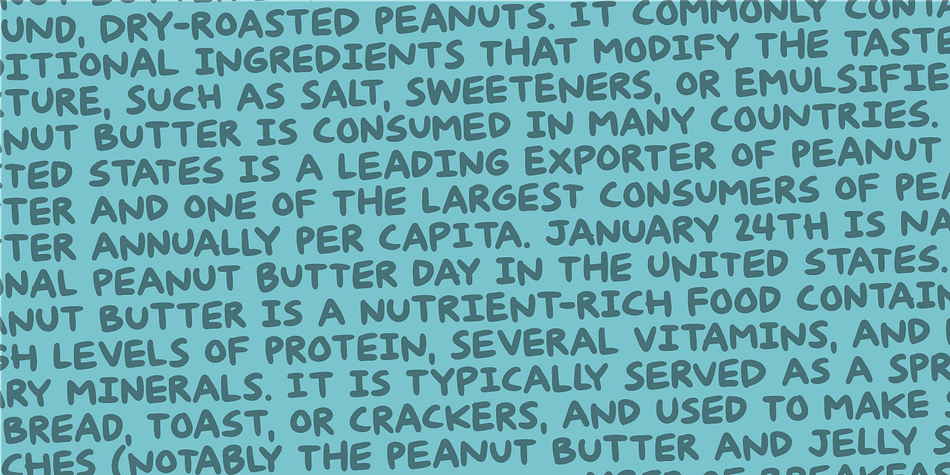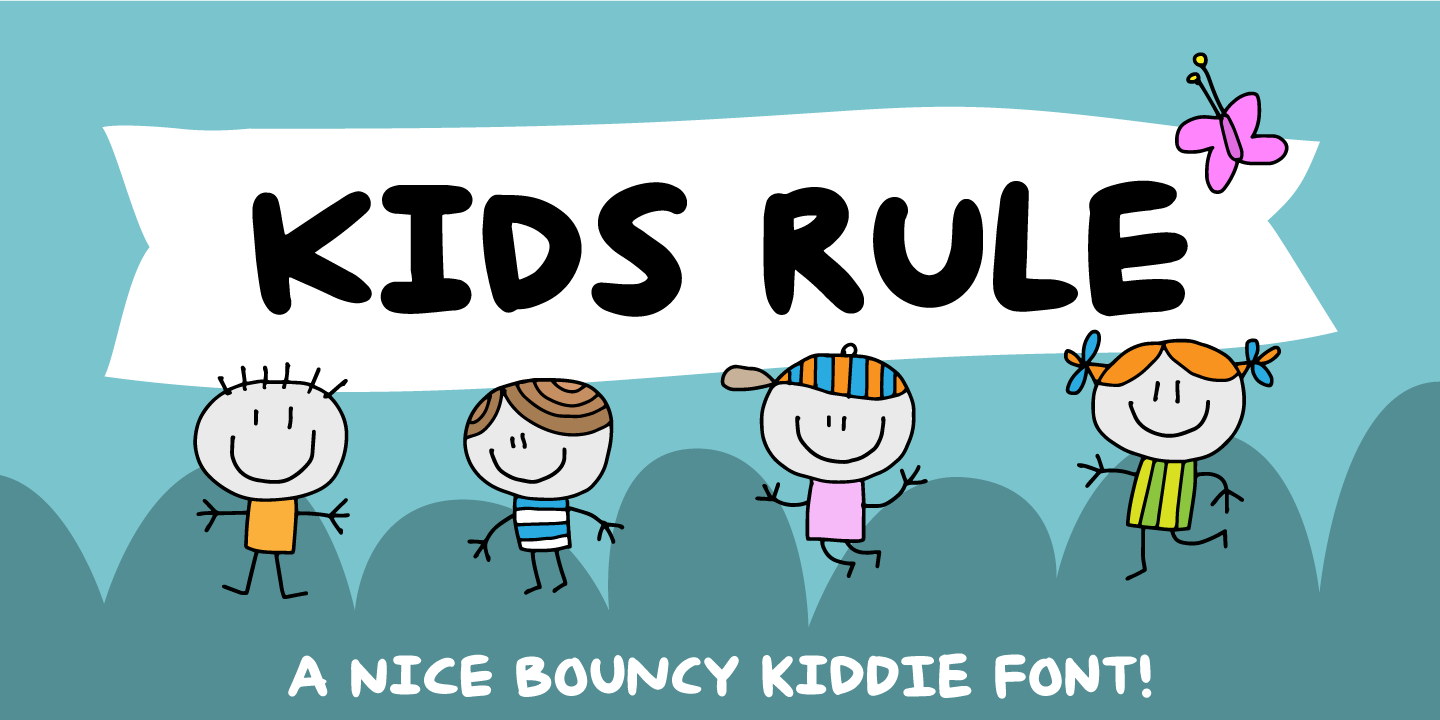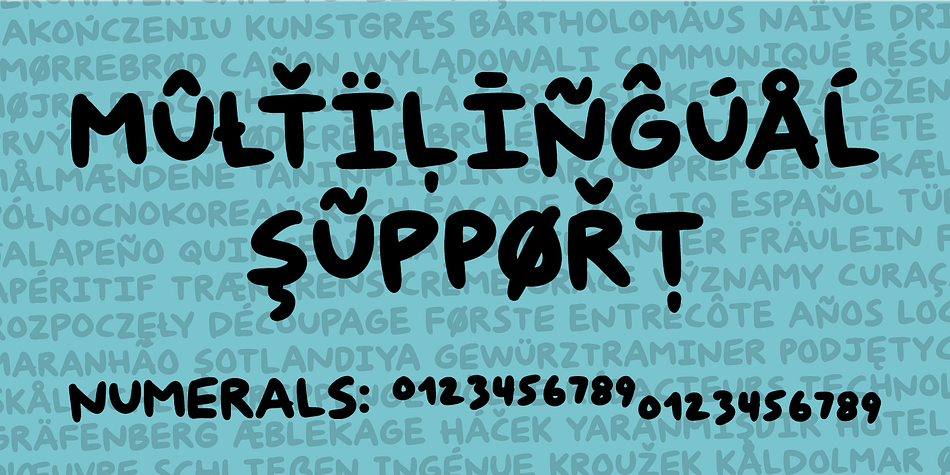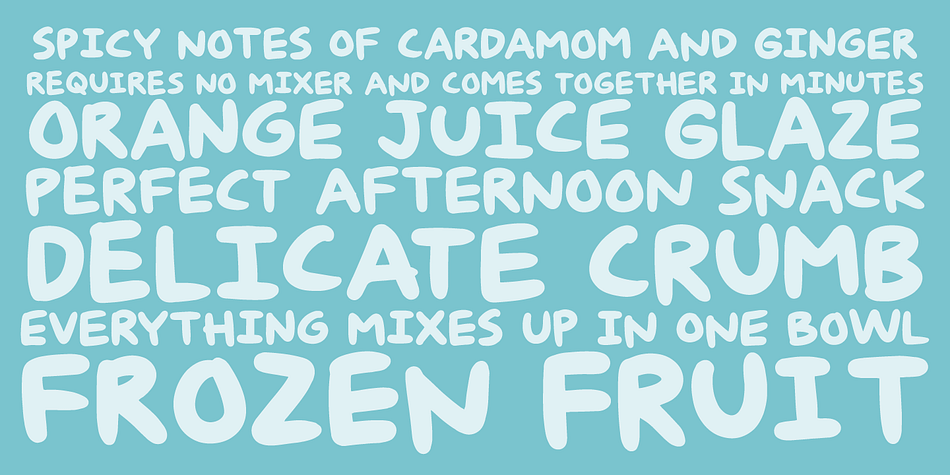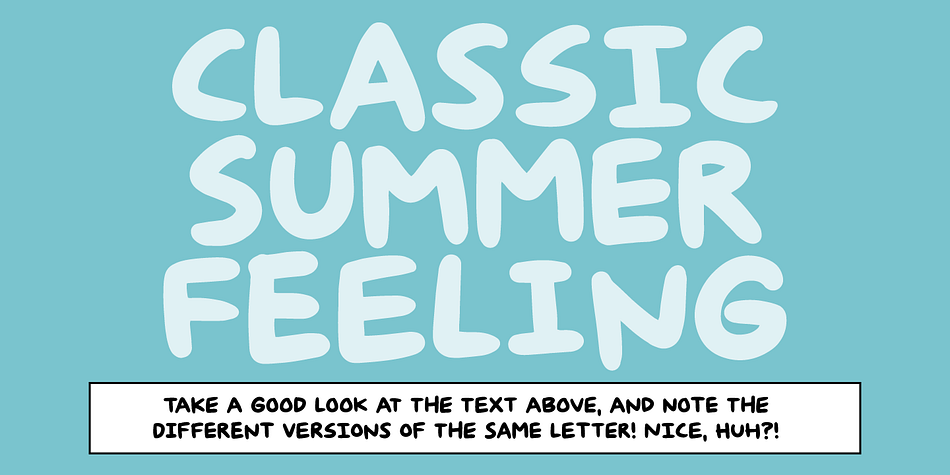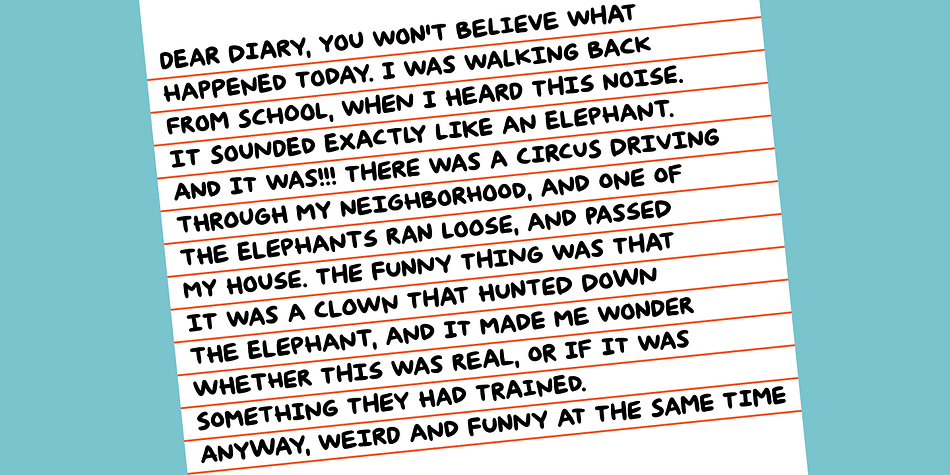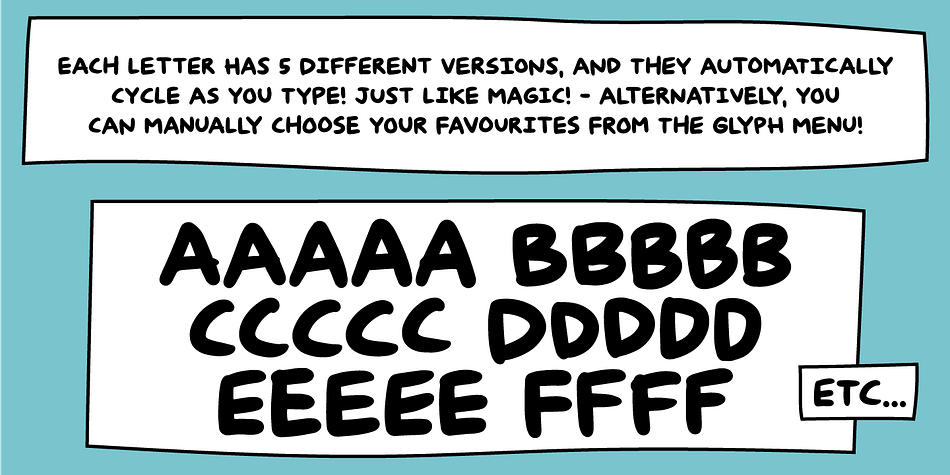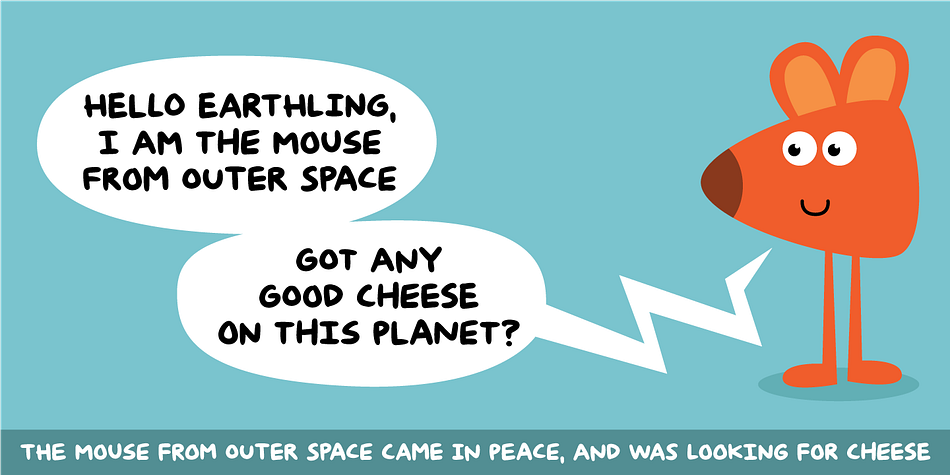
Kids Rule
Designed by Jakob Fischer, Kids Rule is a comic, hand display and kids font family. This typeface has two styles and was published by Pizzadude.dk.
Sometimes you need a lot of text, and that text needs a little bit extra something. Something sweet for the eye, but still legible and not too funky. Maybe that’s where Kids Rule comes in. It’s a bouncy, but super-legible handmade comic font. It has a lot of attitude, and I have added 5 different versions of each letter!